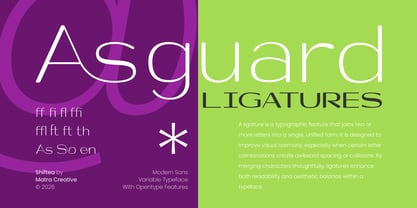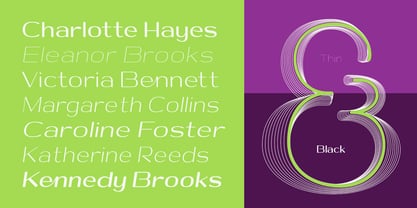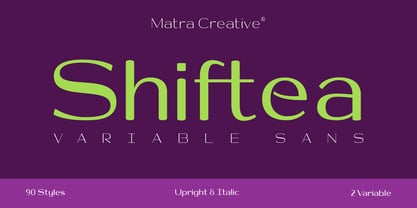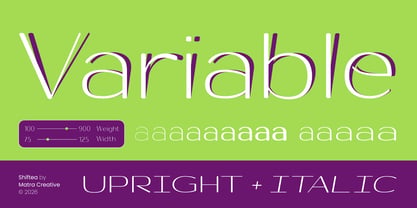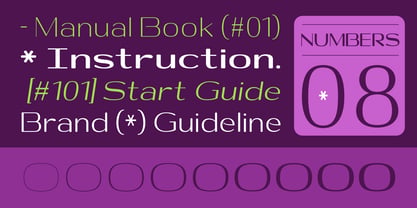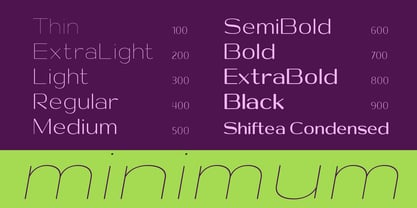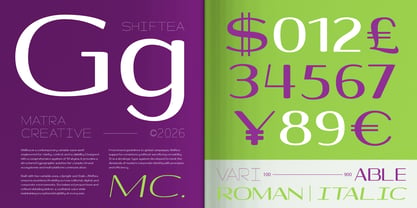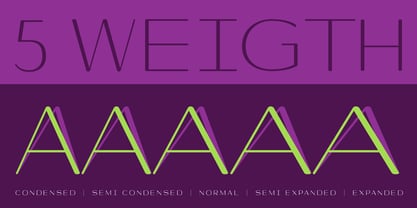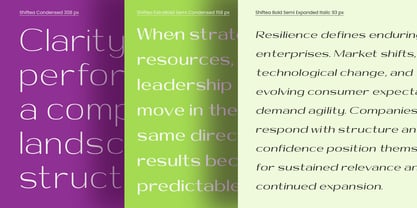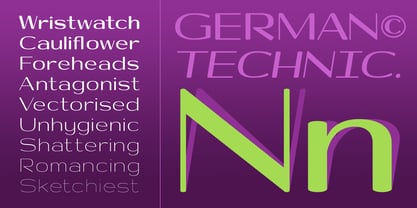
Shiftea
by Matra Creative
The Shiftea Font Family was designed by May Adifarzan muis and published by Matra Creative. Shiftea contains 92 styles and family package options. More about this family
Shiftea Variable Sans is a modern sans-serif designed to deliver limitless typographic flexibility. With 90 complete styles spanning upright and italic forms, plus two variable axes for width and slant adjustments, Shiftea gives designers full control over visual expression. From sleek condensed forms to expansive expanded widths, every variation achieves a balance of functionality and personality, making it the perfect solution for diverse design needs. More than just a typeface, Shiftea is a versatile creative tool—ideal for crafting elegant brand identities, powering bold editorial layouts, or shaping clean and intuitive digital interfaces. Its strength lies in its transformative capability: one font family that adapts seamlessly across contexts, from expressive headlines to highly readable body text. With consistent visual harmony across all styles, Shiftea ensures a professional yet distinctive typographic experience. Created with meticulous attention to detail and the demands of modern designers, Shiftea Variable Sans blends contemporary aesthetics with cutting-edge typographic technology. The result is a typeface that is not only visually striking but also practical, efficient, and ready to support cross-media projects—print or digital. Shiftea proves that one font can unlock endless possibilities: One font, endless possibilities.
Designers: May Adifarzan muis
Foundry: Matra Creative